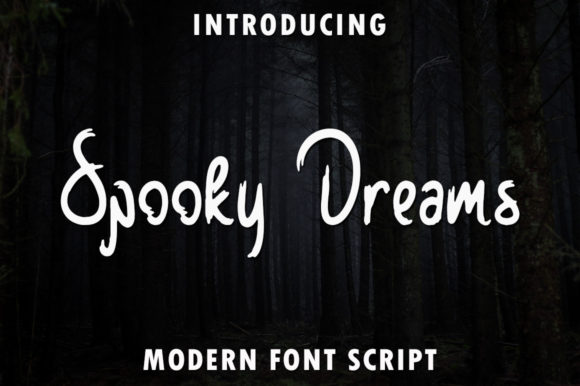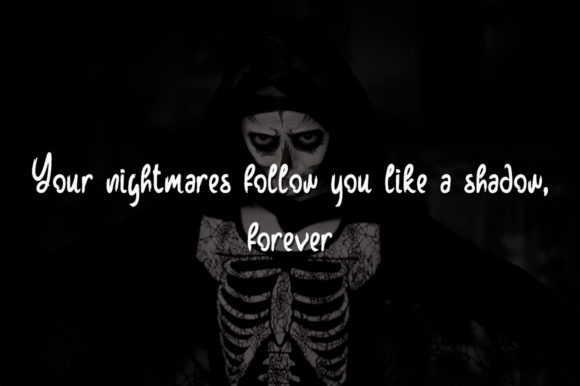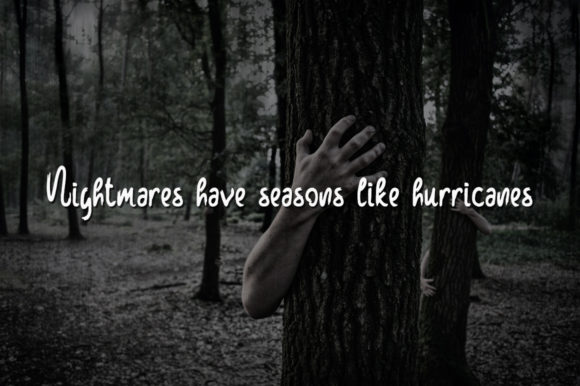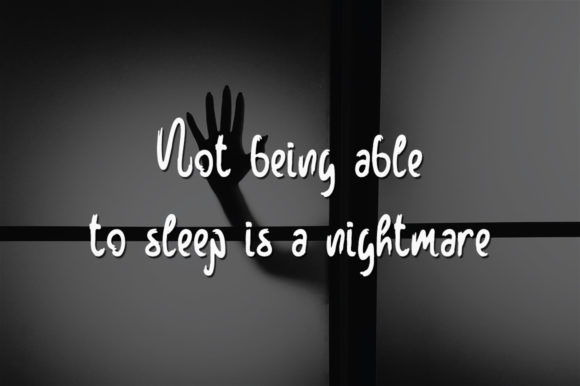
About Spooky Dreams Font
Spooky Dreams is a captivating brushed handwritten font that evokes a sense of mystery and intrigue. With its simple and down-to-earth style, this font is versatile and can be used in a variety of informal or casual design ideas.
The brush strokes in Spooky Dreams give it a unique texture and create a slightly uneven and organic feel. This adds a touch of personality and character to the font, making it stand out from traditional typefaces. The letters have a slightly rough and worn look, enhancing the overall spooky and atmospheric vibe.
The readability of Spooky Dreams ensures that your message is clear and legible, even with its brushed appearance. The simplicity of the font allows it to be easily incorporated into various design projects, from Halloween-themed invitations and party flyers to social media graphics and casual branding.
When used in Halloween designs, Spooky Dreams adds a touch of mystery and playfulness. It can be applied to posters, greeting cards, or any other project that aims to capture the spirit of the spooky season. The font’s brushed style creates an eerie and atmospheric effect, perfect for setting the mood and adding a sense of excitement.
Beyond Halloween, Spooky Dreams can also be utilized in other informal design ideas. It can add a unique and casual touch to blog headers, DIY project instructions, or personal stationery. Its simplicity and versatility make it a great choice for various creative endeavors.
Embrace the captivating and down-to-earth style of Spooky Dreams, and let it infuse your designs with a sense of mystery and intrigue. Whether you’re aiming for a spooky Halloween theme or a casual and informal aesthetic, this font will add a touch of character and charm to your projects.